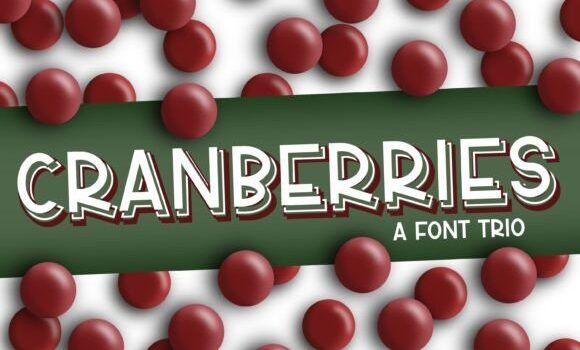
cranberries
Cranberries Font – Free Download Introduction to Cranberries Font Introducing Cranberries, a delightful font trio with a pop of personality. 📸 Preview Gallery 3 images 📌 Product Name Cranberries Font 👤 Author kitaleigh 📂 Category Explore ⬇️ Download Cranberries Font